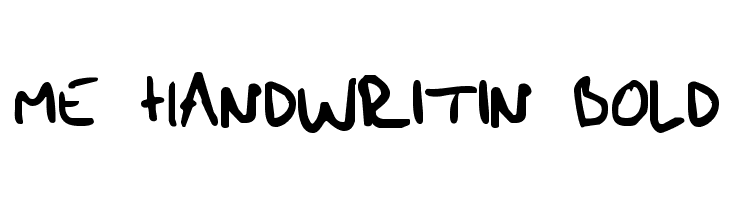
A bold, playful handwritten font with rounded, marker-like strokes.
A playful, decorative font with letters in hanging sign frames.
A 3D italic font with outlined characters and a futuristic style.
A creative and eclectic display font with unique patterns and textures for each character.
A bold, italicized font with dynamic and energetic strokes.
A bold, italicized pixelated font with a retro digital aesthetic.
A bold, heavy italic font with a modern and dynamic style.
An artistic and decorative font with swirling patterns and bold outlines.